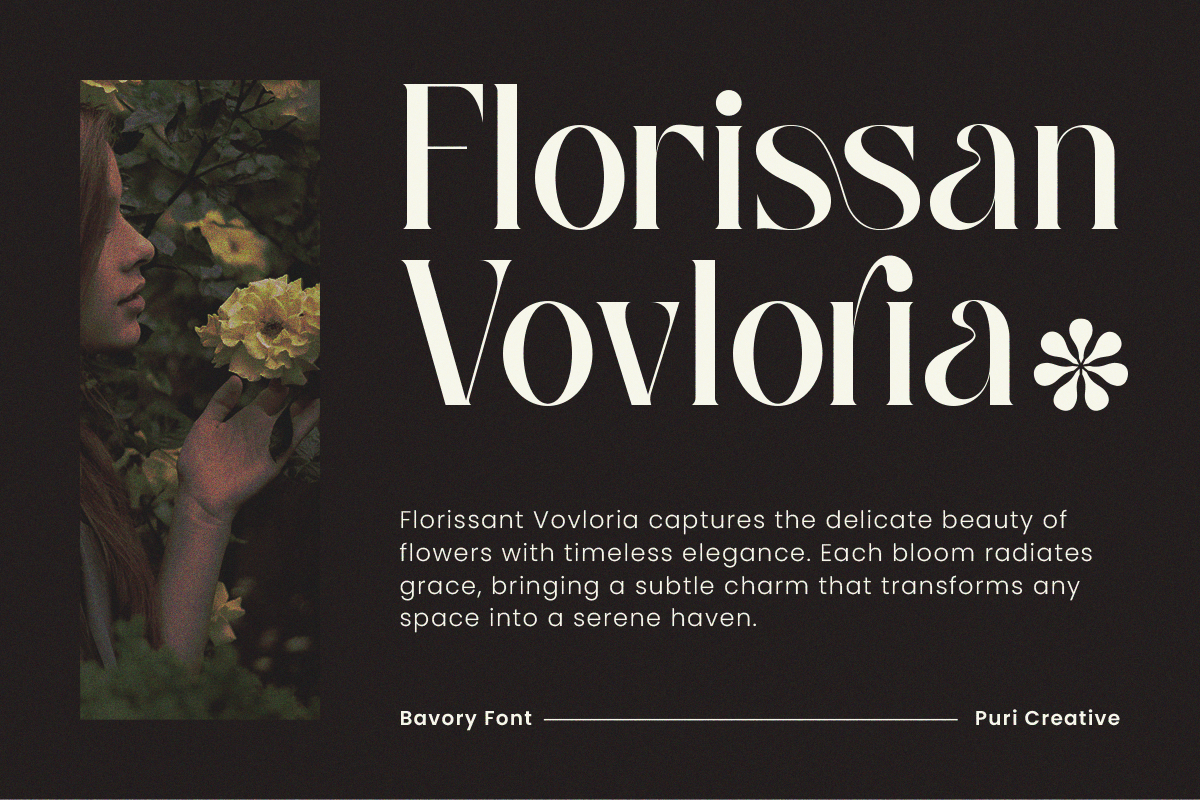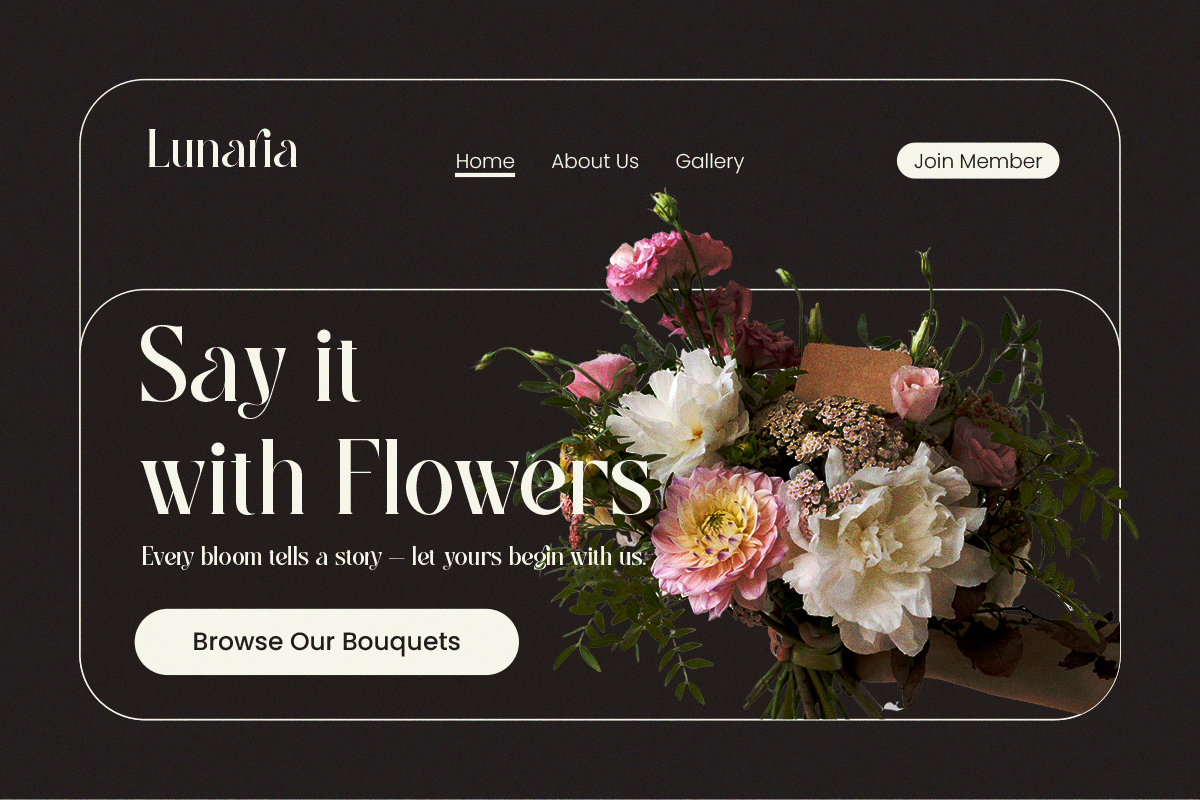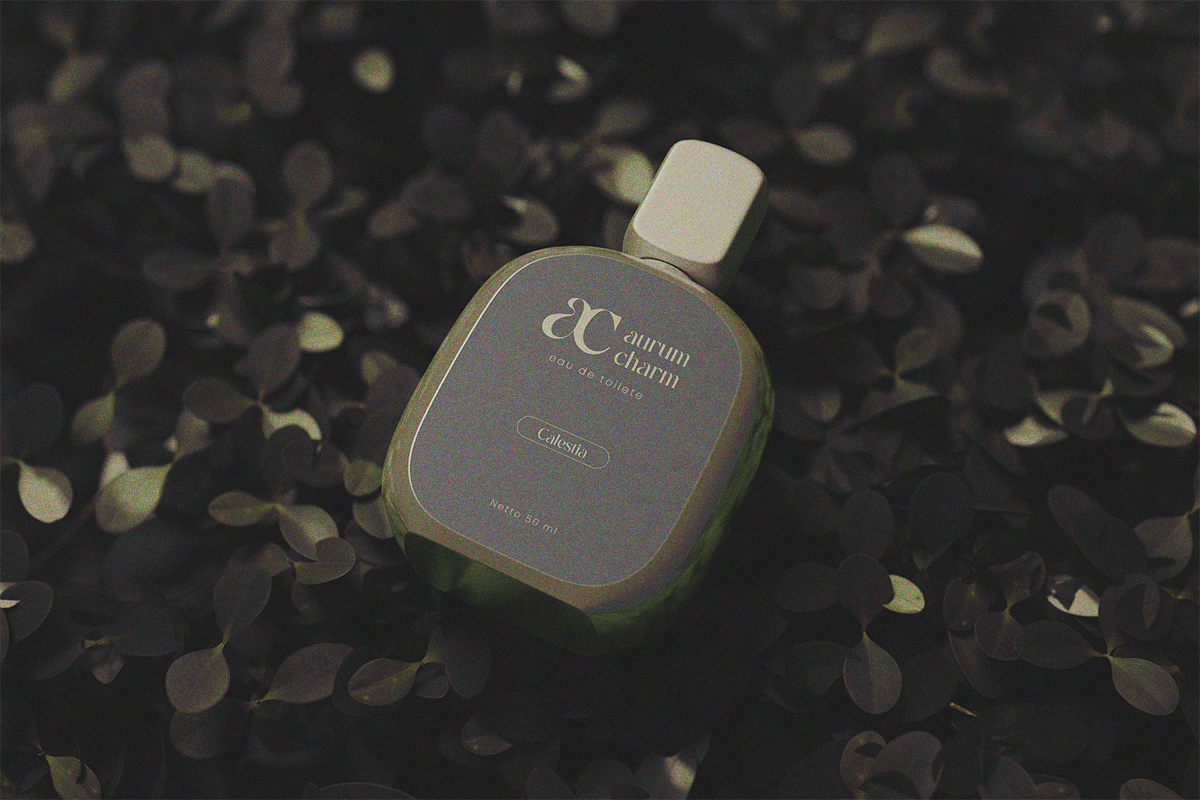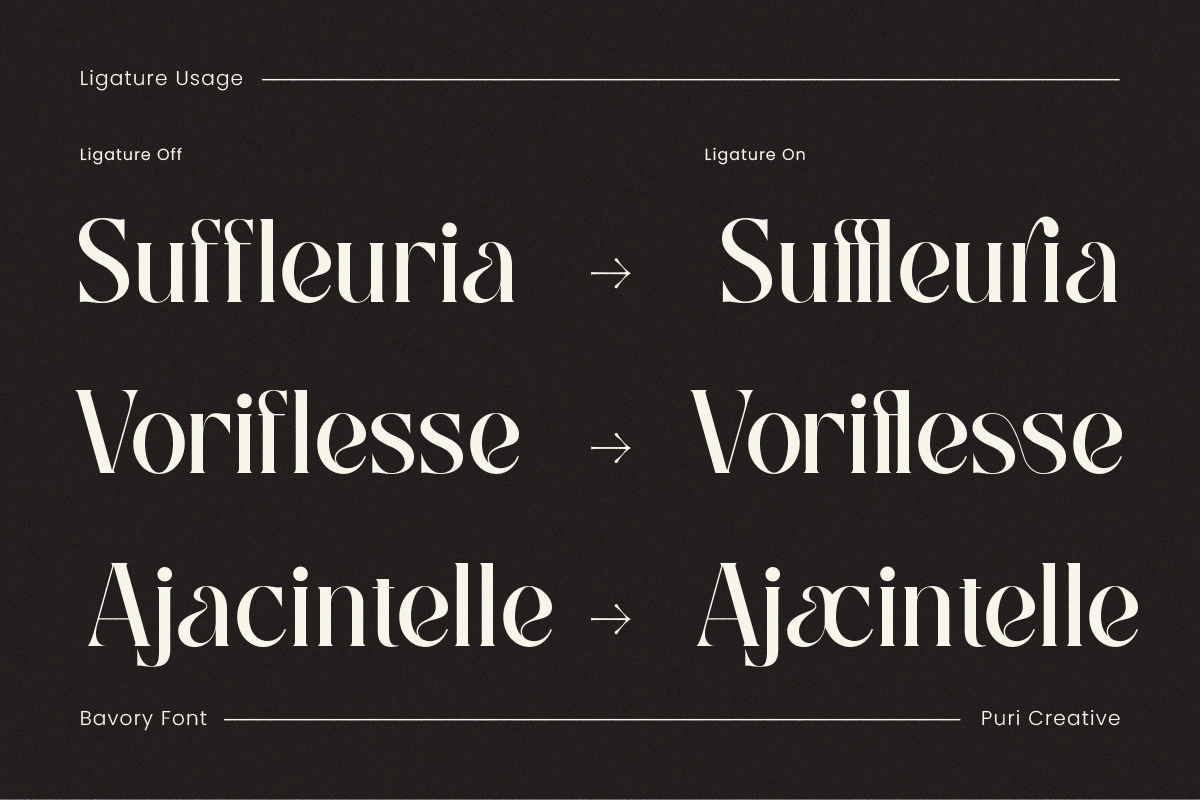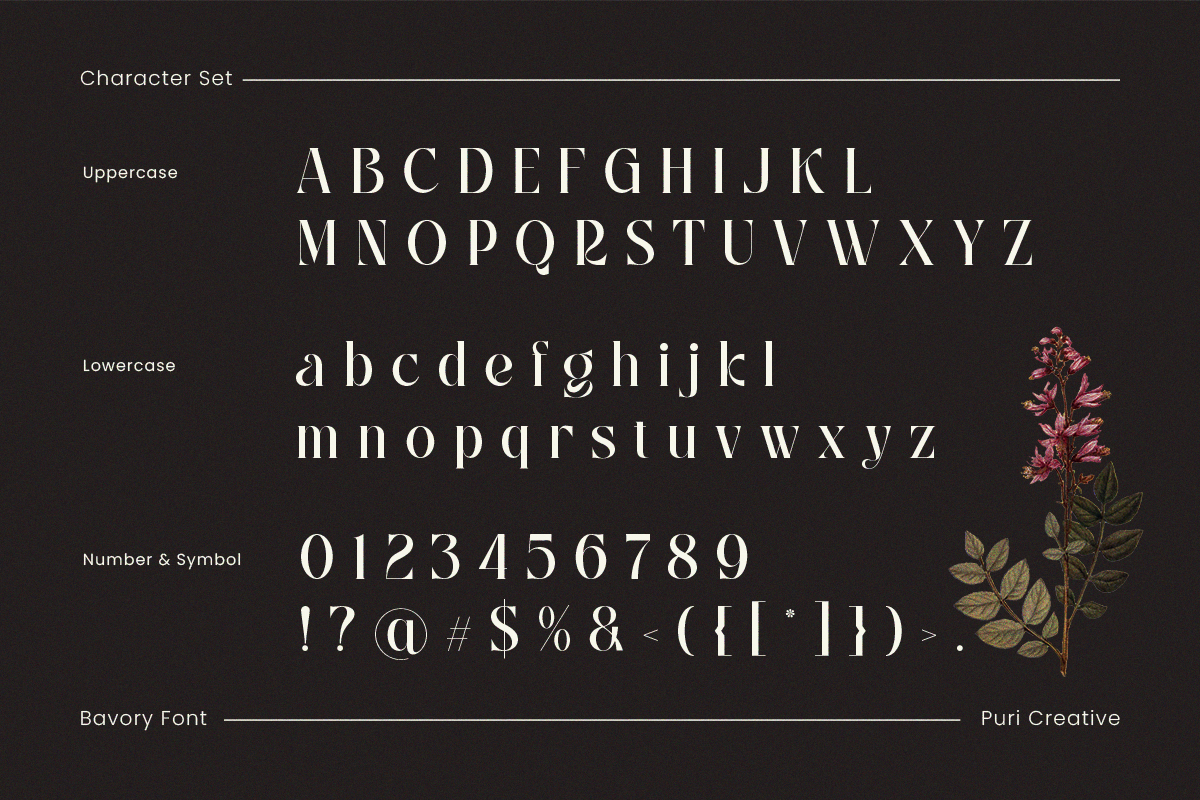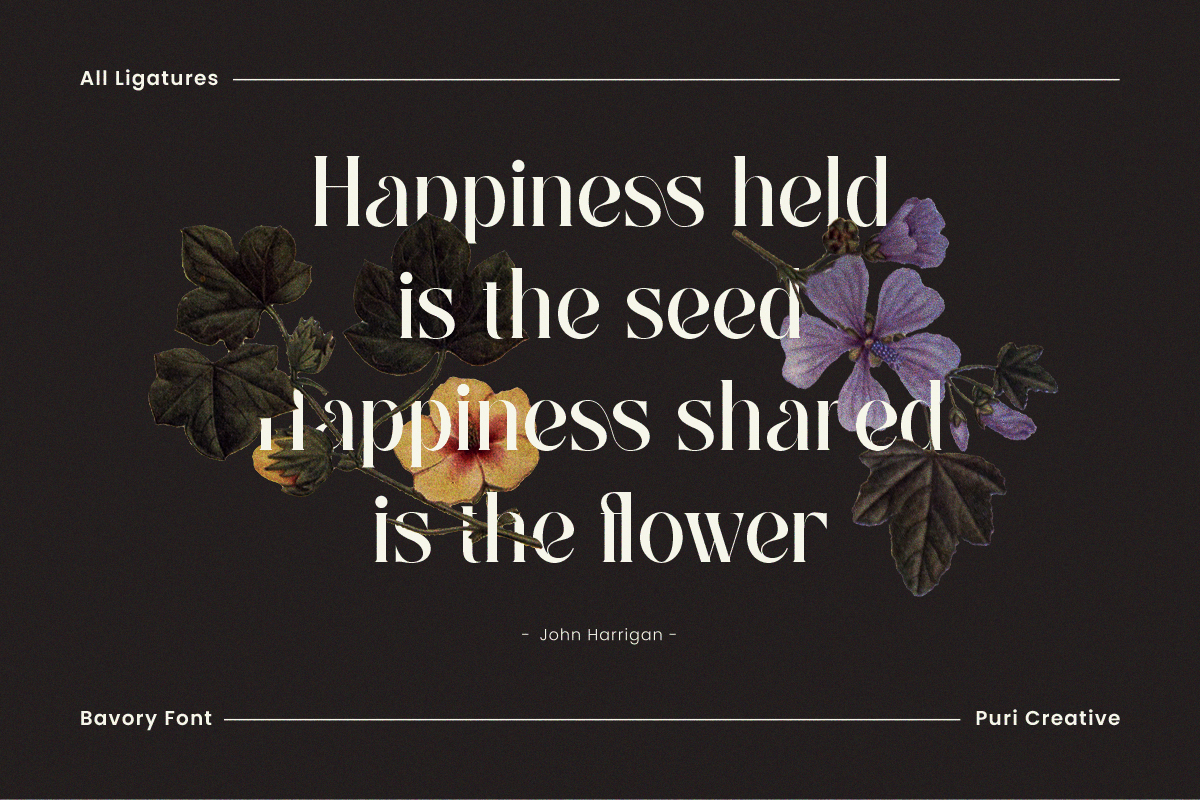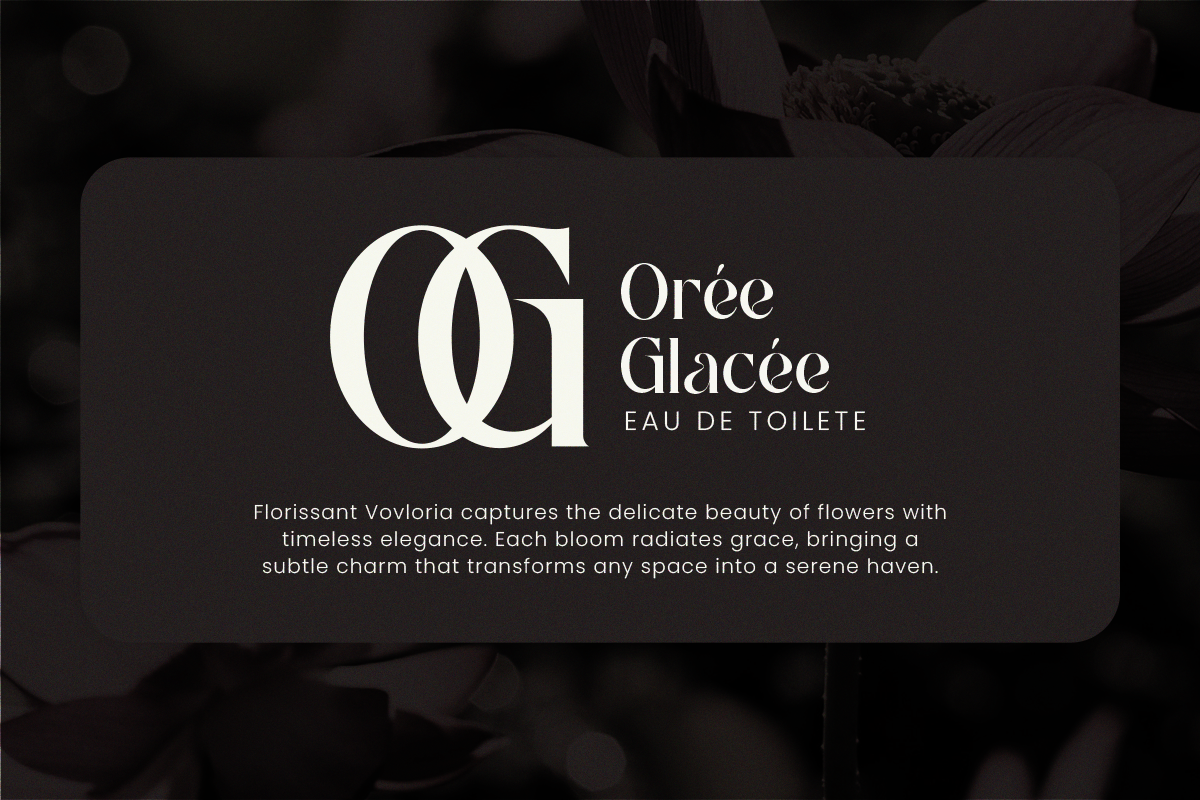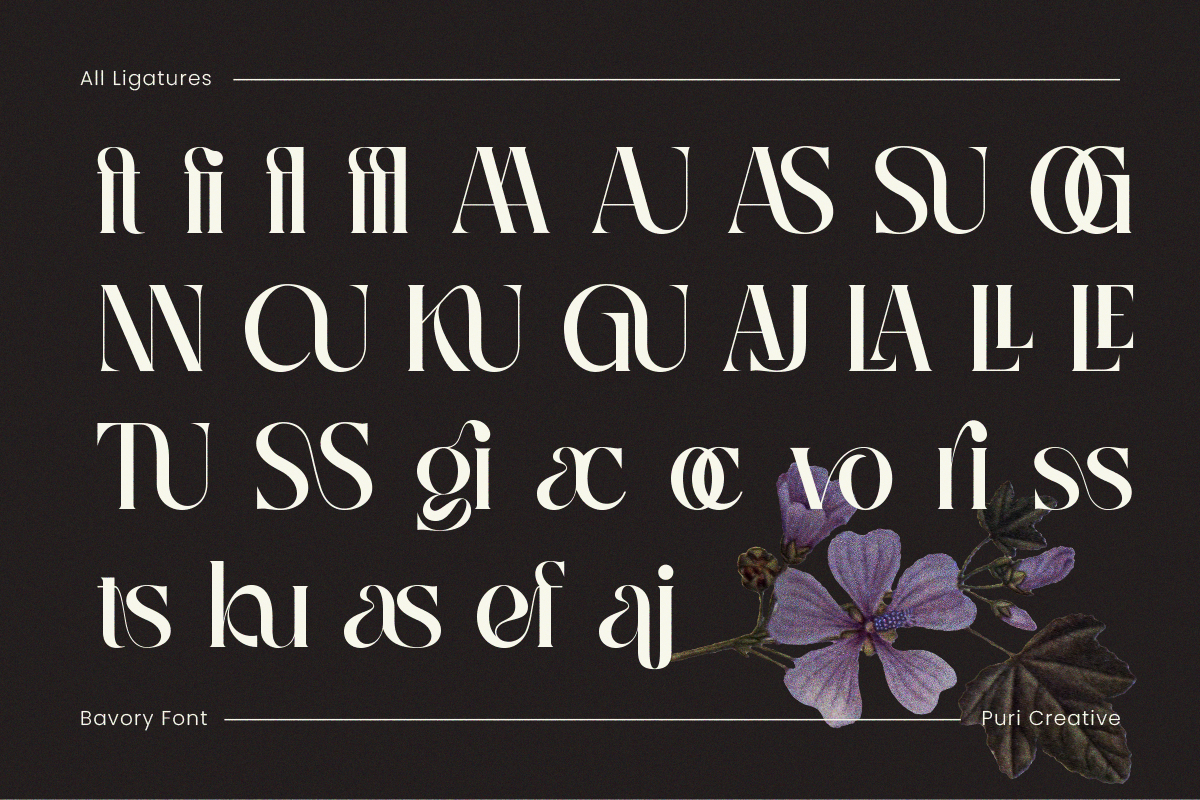
Bavory - Elegant Modern Twist Serif
Introducing Bavory — Elegant Serif with a Modern Twist
Bavory is a refined serif typeface that seamlessly blends timeless elegance with a fresh, modern edge. Designed for those who seek sophistication in every detail, this font elevates your visuals with its graceful curves and striking ligatures that bring each word to life.
Perfectly suited for logos, magazines, social media content, invitations, and branding, Bavory adds a touch of class and charm to every design. Whether you're aiming for chic minimalism or stylish nostalgia, this font adapts effortlessly to your creative direction.
Built with powerful OpenType features, Bavory includes beautifully crafted ligatures, punctuation, numerals, and supports multilingual usage—making it as functional as it is fashionable.
If you're looking for an Elegant Serif with a Modern Twist, Bavory is your ideal typeface for creating eye-catching and timeless designs.
- Uppercase & Lowecase Letters
- Bonus Ligature Letters